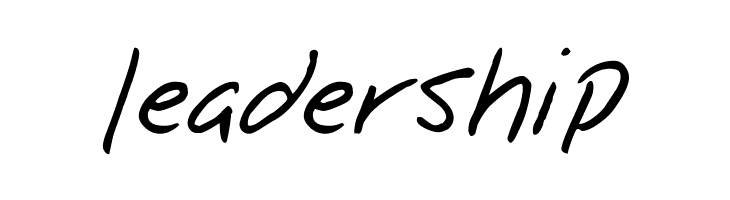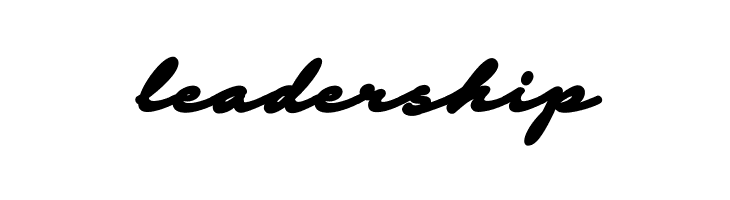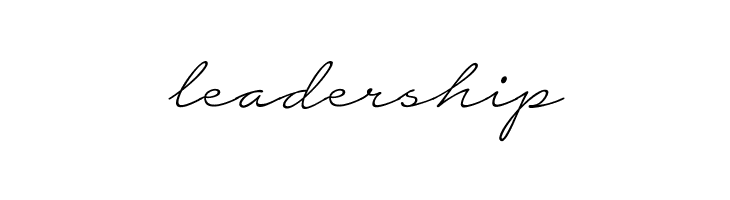
( Fonts by Alex Westcott )
A modern, geometric font with decorative patterns and high contrast.
( Fonts by Open Source Publishing )
A clean, modern sans-serif font with geometric influences and uniform stroke widths.
( Fonts by Open Source Publishing )
A modern, geometric typeface with uniform strokes and excellent legibility.
( Fonts by Andi Moz )
A playful, rounded font with bold, smooth curves and a friendly appearance.
A playful, handwritten font with bold, rounded characters and a whimsical style.
A playful, hand-drawn font with bold, rounded characters perfect for fun and creative projects.
A playful, handwritten font with a bold, rounded style and slight slant.
A playful, handwritten font with bold, rounded letters and a slight slant.
( Fonts by Excellent Ritma Florendia )
A casual, handwritten font with smooth, consistent strokes and a playful appearance.
( Fonts by Mr Fisk - Mike Larsson - fontorama.net )
A bold, playful font with outlined characters and a comic book style.
A playful, handwritten font with tall, narrow letterforms and consistent stroke width.
A bold, rounded font with a modern, playful aesthetic.
A playful handwritten font with smooth, rounded strokes and a casual style.
A playful, casual handwritten font with smooth curves and consistent stroke width.
Whimsical, handwritten script with tall, airy letterforms.
( Fonts by Perspectype Studio )
A playful handwritten font with a casual and friendly style.
( Fonts by Khurasan™ )
A playful, hand-drawn font with characters on note cards hanging on a line.
( Robert Allgeyer - www.icogitate.com/~ergosum/fonts/music-fonts2.htm )
A playful font combining musical notes with geometric shapes for a unique, artistic style.
( Fonts by Forberas Club )
A playful, casual handwritten font with smooth, rounded edges.
( Matej Korytar - www.matejkorytar.com )
A modern, geometric font with clean, circular lines and consistent stroke widths.
A playful, hand-drawn font with a whimsical and informal style.
( Måns Grebäck - www.mansgreback.com )
A bold, cursive font with a flowing, handwritten style.
( Måns Grebäck - www.mansgreback.com )
A bold, fluid script font with interconnected letters and a strong presence.
( Måns Grebäck - www.mansgreback.com )
A classic, elegant handwritten script with fluid, connected letterforms.
( Måns Grebäck - www.mansgreback.com )
A cursive, handwritten-style font with elegant, flowing characters.
( Måns Grebäck - www.mansgreback.com )
An elegant, flowing script font with a natural handwriting style.
A bold, cursive font with distinctive underlines and fluid strokes.